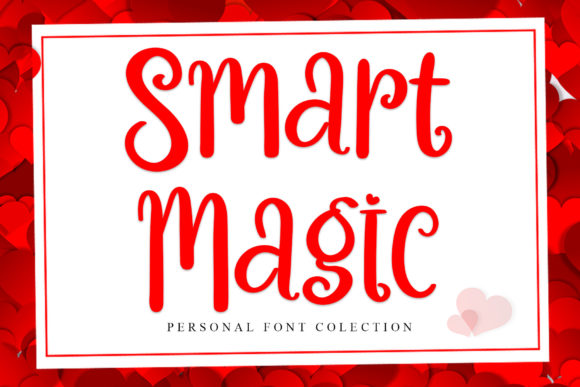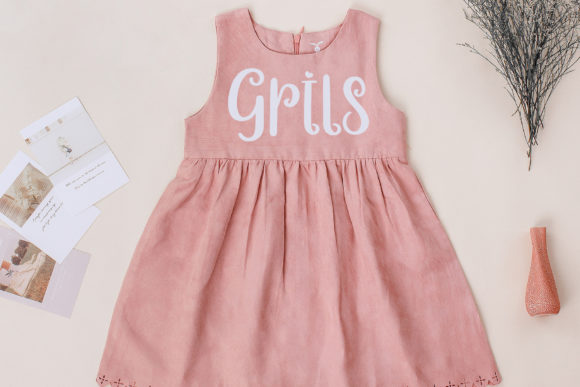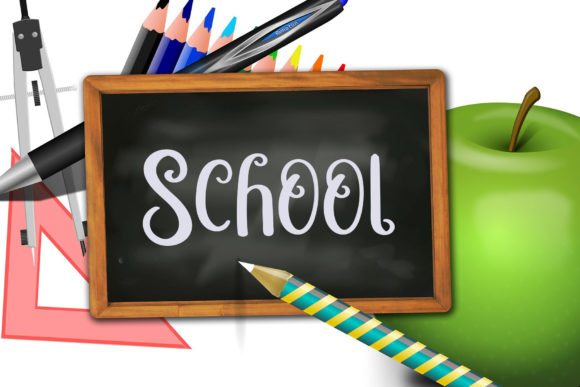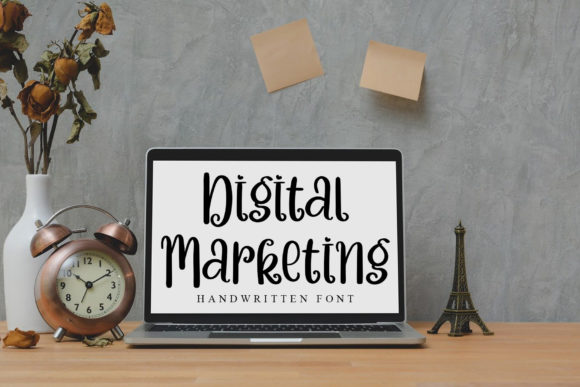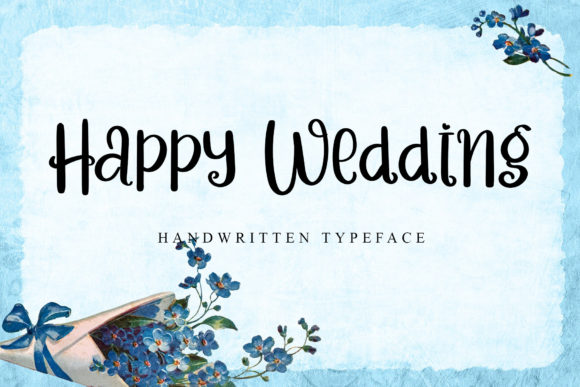
Smart Magic Font
About Smart Magic Font
Introducing Smart Magic, a unique and elegant handwritten font that brings a touch of charm and whimsy to your designs. With its playful and distinctive characters, this font is the perfect choice for a variety of projects.
Smart Magic’s handcrafted style adds a sense of warmth and personality to your designs. Whether you’re creating wedding invitations, watermarks, apparel designs, or product packaging, this font will instantly elevate your work and make it stand out.
The playful characters of Smart Magic give your designs a sense of fun and lightheartedness. The letterforms are carefully crafted with attention to detail, creating a cohesive and visually pleasing look. Whether you’re using it for large headlines or small details, Smart Magic maintains its elegance and legibility.
This font is highly versatile and adaptable to different design contexts. Its unique style makes it suitable for a range of projects, from romantic and whimsical wedding invitations to trendy and modern apparel designs. The possibilities are endless.
With its charming and elegant appearance, Smart Magic adds a touch of magic to your designs. Its versatility and playful nature make it a great choice for various design projects. You can confidently use it to create memorable and eye-catching designs that leave a lasting impression on your audience.
So, let your creativity flow and let Smart Magic add a touch of elegance and playfulness to your designs. Whether it’s for wedding invitations, watermarks, apparel designs, or product packaging, this unique and elegant handwritten font is sure to make your projects shine with its magical charm.